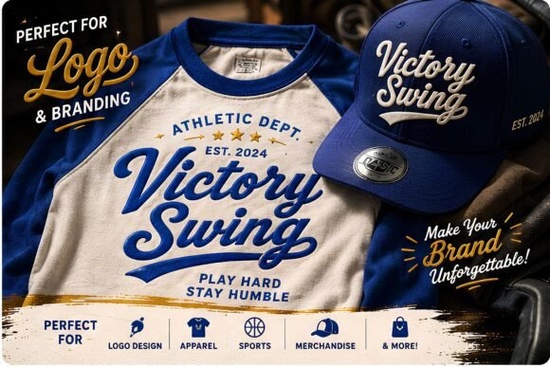
If you’ve been searching for a font that brings bold personality and retro charm to your designs, Victory Swing Font might be exactly what you need. It’s not just another script it’s built with smooth curves, dynamic swashes, and that unmistakable vintage sports vibe. Whether you’re designing merch for a local baseball team, branding a café with throwback appeal, or creating streetwear graphics, this font holds its own without feeling overdone.
What makes it stand out is how naturally it fits into projects that want to feel energetic but still polished. You don’t have to force it into place. It works on posters, packaging, apparel, and even social media banners. And if you’ve ever tried pairing fonts for layered designs, Victory Swing plays nicely with cleaner sans-serifs or minimal scripts like The Wedding Signature for contrast.
Who actually benefits from using this font?
It’s not just for designers with years of experience. If you run a small print-on-demand shop, craft custom t-shirts, or sell stickers at local markets, Victory Swing gives your products a professional edge without needing advanced design skills. The letterforms are consistent and well-spaced, so even beginners can drop them into templates and get great results.
Crafters love it too especially those making vinyl decals, embroidery patterns, or laser-cut signs. Because the strokes are thick and clear, it cuts cleanly and reads well at smaller sizes. Small business owners? If your brand leans toward nostalgia, athleticism, or urban grit, this font adds character without looking gimmicky.
Where does it work best?
- Apparel & Merch: Think hoodies, caps, gym bags anything that wants to look sporty but stylish.
- Branding: Coffee shops, barbershops, skate shops, or food trucks with a retro-modern angle.
- Posters & Flyers: Concerts, community events, or seasonal sales where you need something that pops.
- Packaging: Especially for snacks, energy drinks, or handmade goods that want a handcrafted-but-bold look.
One thing to note: while it’s bold, it’s not overwhelming. The swashes add flair but aren’t so exaggerated that they become unreadable. That balance is rare in script fonts. For comparison, something like Juicy Come leans more playful and bubbly, while Victory Swing stays grounded in that classic athletic lettering tradition.
How does it compare to other script fonts?
Not all scripts are made equal. Some are delicate, like Simple Planner, which suits wedding invites or journal layouts. Others, like Crayons Bright, feel more childlike and whimsical. Victory Swing sits in a sweet spot it’s got personality but doesn’t sacrifice legibility or professionalism.
Its x-height is generous, meaning lowercase letters are tall enough to stay readable even when scaled down. The uppercase letters have enough weight to anchor headlines without looking clunky. And because it’s inspired by real sports lettering not just “vintage vibes” it avoids feeling like a costume font. It’s useful, not just decorative.
Any tips for getting the most out of it?
A few small tricks go a long way:
- Pair it smartly. Try combining it with a clean, geometric sans-serif for contrast. Avoid pairing it with other heavy scripts that’s where fonts like Lovely might steal the spotlight instead of complementing.
- Use swashes sparingly. They’re great for logos or opening lines, but too many in a paragraph can make things messy.
- Test readability at size. Even though it’s bold, always preview how it looks on mobile screens or printed tags before finalizing.
- Adjust tracking slightly if needed. Sometimes loosening the letter spacing by 10–20 points helps the curves breathe better in tight layouts.
Before downloading, think about the project you’re working on. Is it meant to feel energetic? Nostalgic? Bold but not loud? If yes, then Victory Swing will likely fit right in. Open up your design software, grab a mockup template, and test it with your actual content not just placeholder text. See how it feels in context.
And if you’re browsing other options, don’t skip checking out similar styles. Sometimes a slightly different curve or weight makes all the difference. But if you want that classic sports-lettering-meets-modern-branding look? This one’s hard to beat.